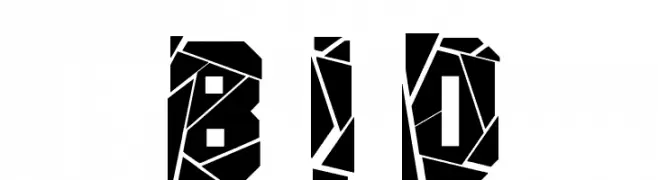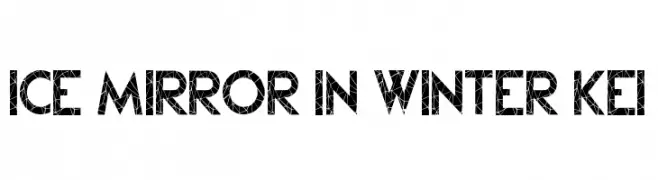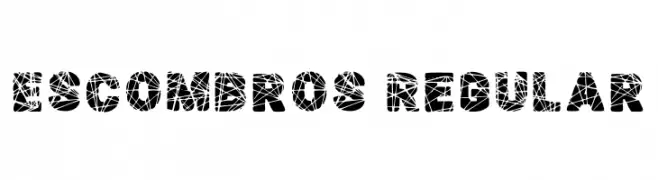
A bold, jagged font with a shattered, chaotic design.
A bold, geometric font with a shattered glass effect for a dynamic and edgy appearance.
A bold, fragmented font with a shattered glass effect, perfect for modern and edgy designs.
A decorative, shattered-style font with a chaotic and dynamic appearance.
A bold, shattered glass effect font with a modern and decorative style.
A bold, decorative font with a shattered glass effect.
A bold, shattered glass-style decorative font.
A bold, fragmented font with a shattered glass effect.
A bold, shattered glass-inspired font with a dynamic and edgy appearance.